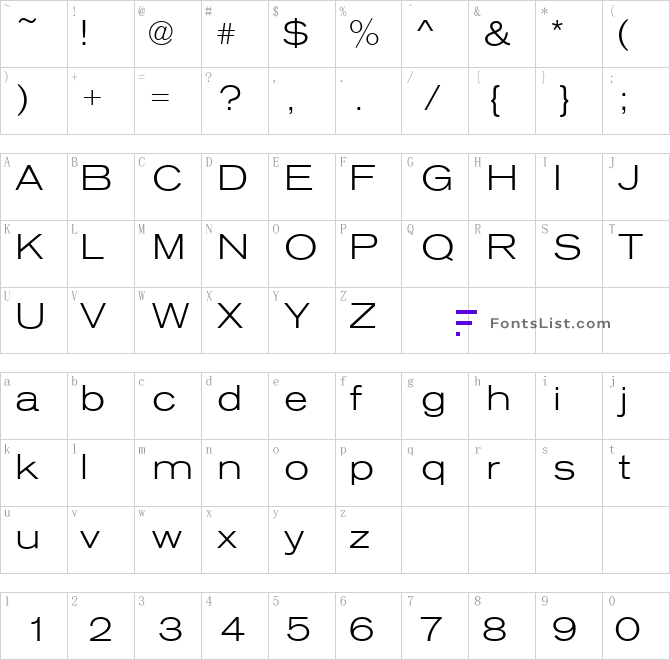
- Font Name:Ancona-Ex-Light
Ancona-Ex-Light-Regular.ttf is a very beautiful artistic font, Ancona-Ex-Light-Regular.ttf is widely used in the design and printing of various books and pictures,Ancona-Ex-Light-Regular.ttf has a strong visual impact,Ancona-Ex-Light-Regular.ttf is a commonly used font in newspapers, magazines and books, and is used in posters, e-commerce Poster design, store design, logo design, font design and other fields.Ancona-Ex-Light-Regular.